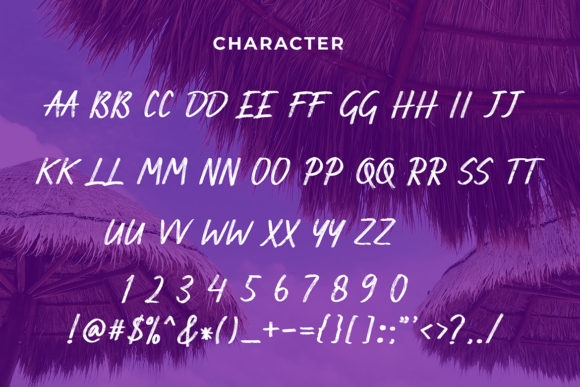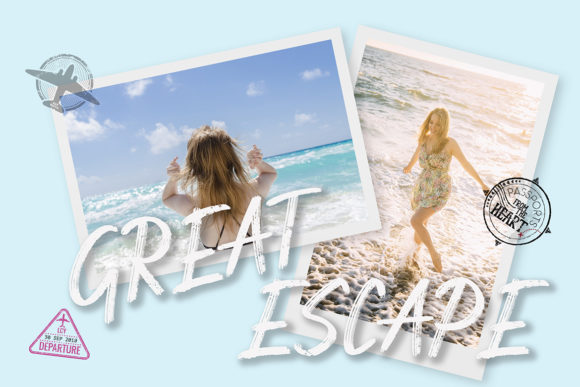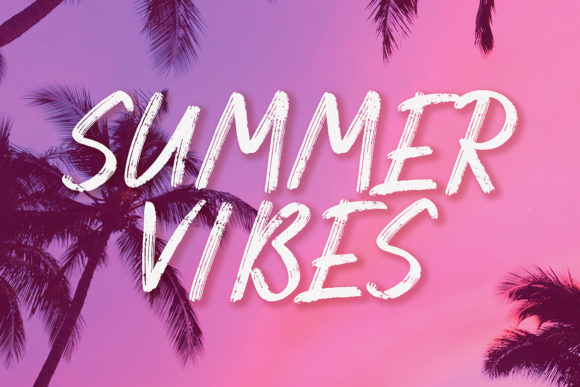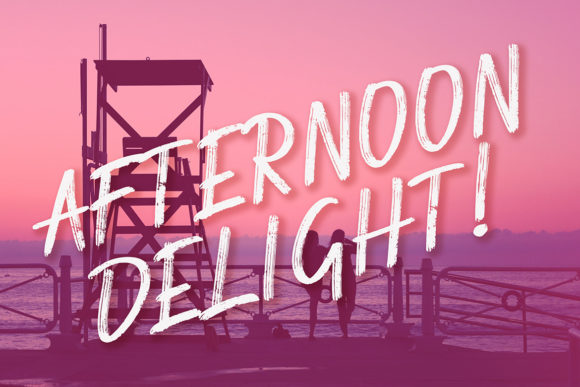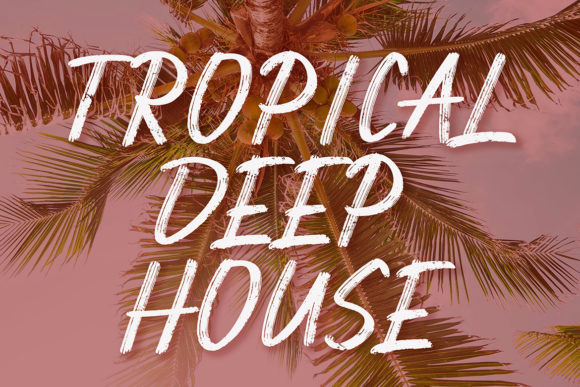
HomeScript FontsDark Fire Font Script Fonts Dark Fire Font FacebookXPinterestWhatsApp Dark Fire Font Poster 2 Dark Fire Font Poster 3 Dark Fire Font Poster 4 Dark Fire Font Poster 5 Dark Fire Font Poster 6 About Dark Fire Font Dark Fire is a raw and unfiltered brush font that will add a touch of authenticity to your next design idea! DOWNLOAD NOW People also explored Choco Romance Font Harista Script Font Epic Christmas Font Lullaby Font Male Heather Maroon Bella Canvas 3001 Sarcastic Font Genathic Font Terlie Font Willy Love Font 323 0 TagsDark Fire Font Previous articleMona FontNext articleBlack Shine Font LEAVE A REPLY Cancel reply Comment: Please enter your comment! Name:* Please enter your name here Email:* You have entered an incorrect email address! Please enter your email address here Website: Save my name, email, and website in this browser for the next time I comment. Personal Use Free Gonestones Personal Use Free Read more about this font Good Luck Personal Use Free Read more about this font Dakwart Letter Personal Use Free Read more about this font Die Nasty Personal Use Free Read more about this font BLOG Elegant Wedding Invitation Fonts – Handwritten & Script Fonts Elegant Wedding Invitation Fonts Your wedding day is one of the most important moments of your life, and every detail matters—including your invitation design. Our... The 10 Best Handwriting Fonts to Add Personality to Your Designs Free Fonts Risk: Why Free Fonts Can Be Dangerous for Designers Top 10 Handwritten Fonts That Elevate Your Designs